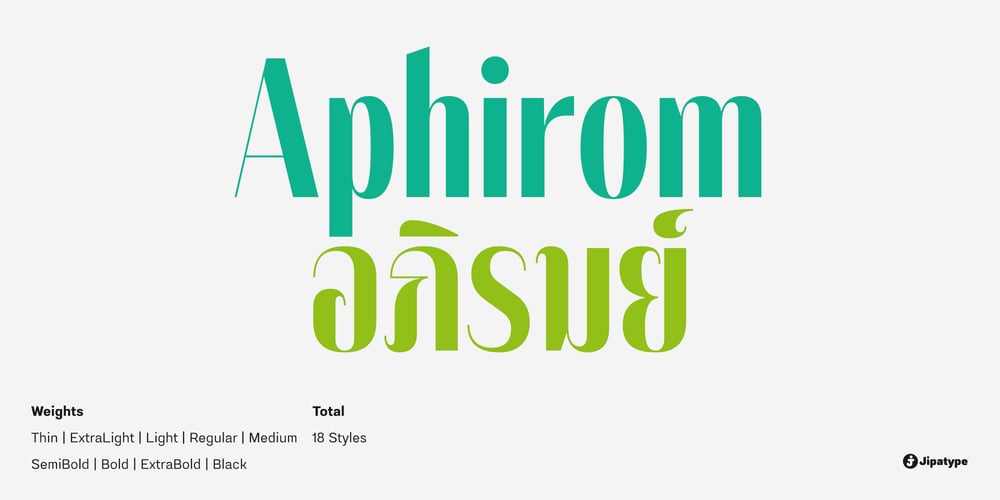
Aphirom
Aphirom font
Aphirom Font Family was designed by Anupap Jaichumnan and published by Jipatype. Aphirom contains 18 styles and family package options. Apirom is a contrast sans-serif typeface characterized by narrow letterforms and high contrast between vertical and horizontal strokes. It exudes a sleek and elegant aesthetic that evokes a sense of delight upon viewing, making it perfect for promotional materials focused on beauty, serenity, and nature. The typeface comes in 18 styles, ranging from the thin to the black weights, and supports both Latin 1 and Thai scripts.